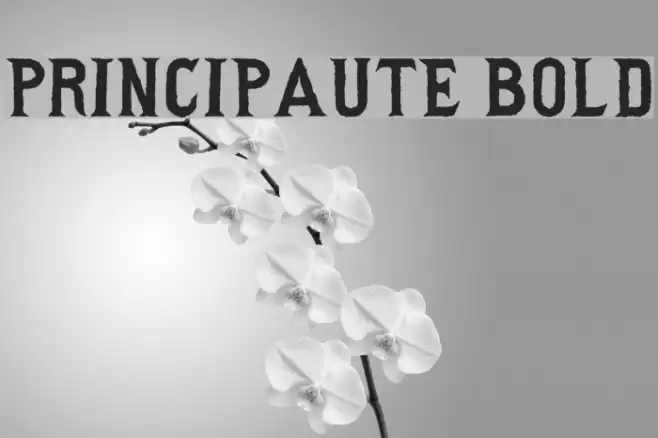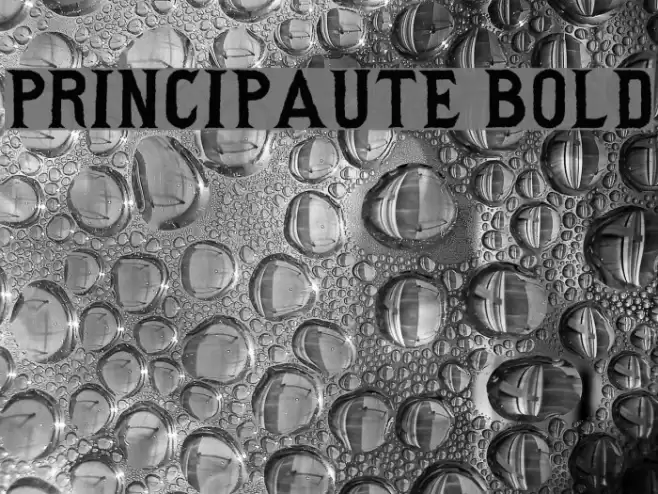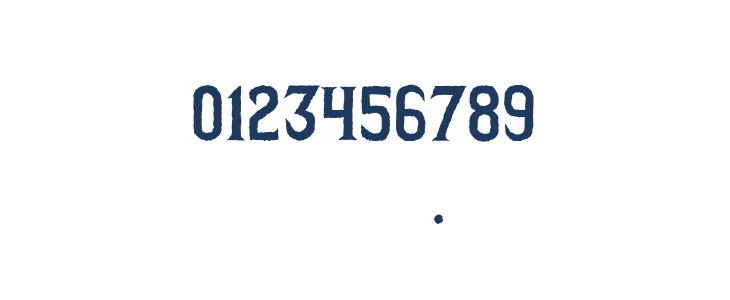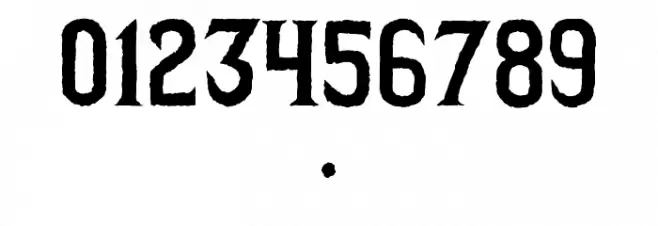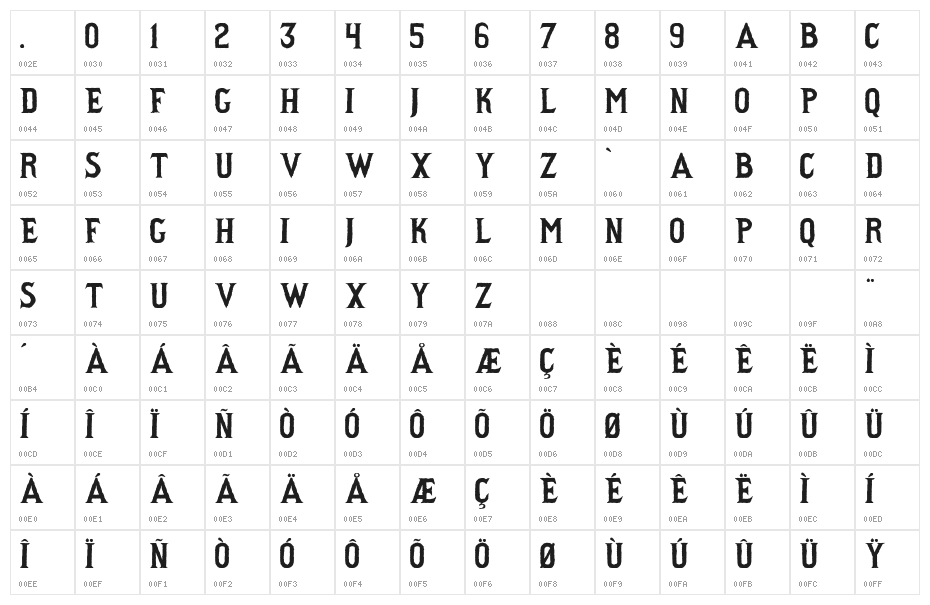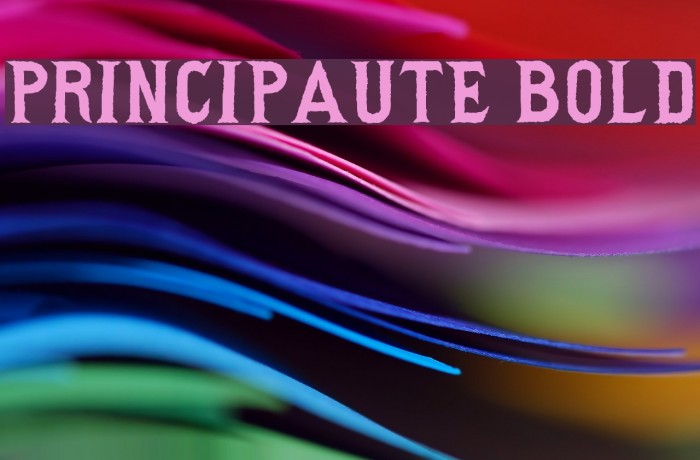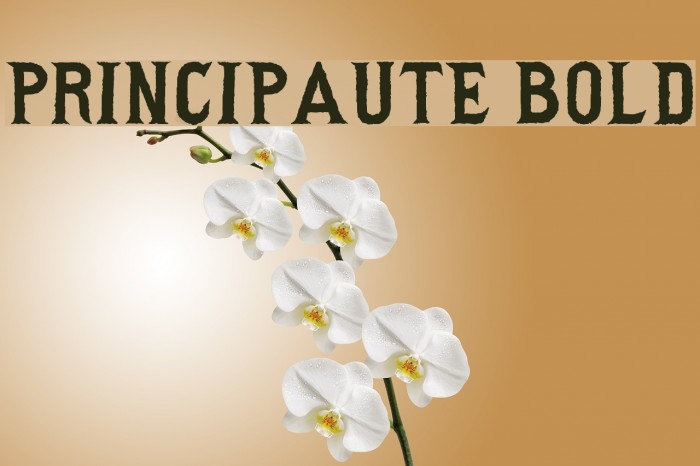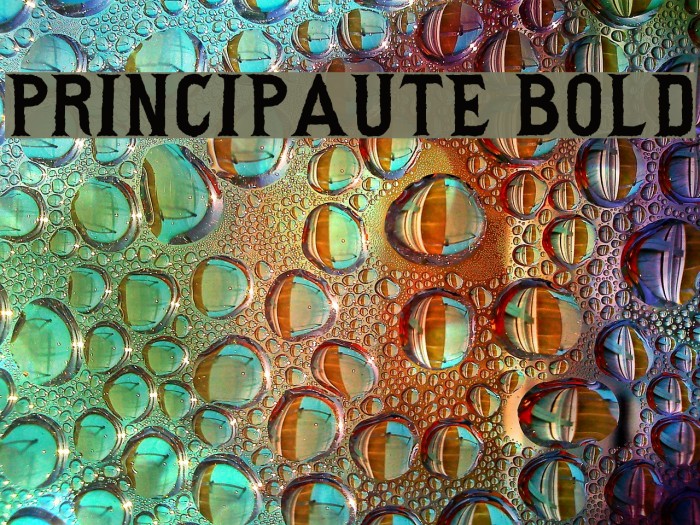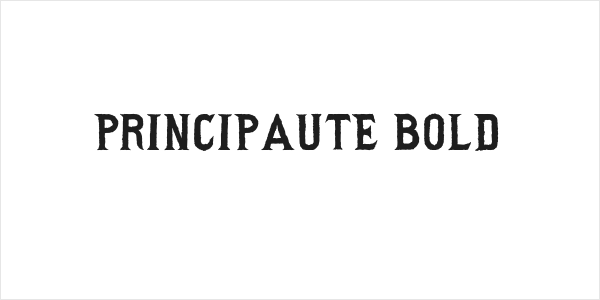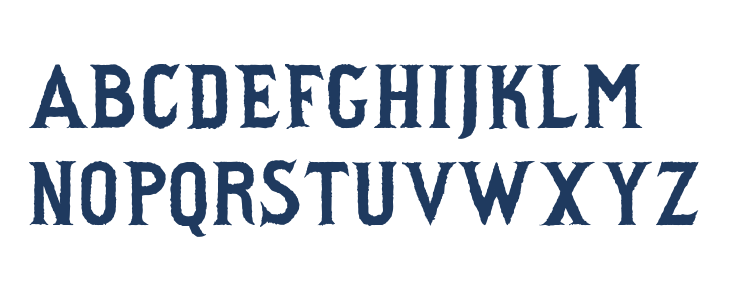
Principaute Bold Font
Principaute Bold Description
This font exhibits a bold and striking appearance with a distinct vintage flair. The characters are designed with sharp, angular edges and a slightly distressed texture, giving it a rugged and dynamic look. The uppercase letters are uniform in height, while the numbers maintain a consistent style that complements the alphabet. The overall design is reminiscent of old-world craftsmanship, making it suitable for projects that require a touch of historical or artisanal charm. The font's boldness ensures it stands out, making it ideal for attention-grabbing headlines or titles.
A bold, vintage-style font with sharp, angular edges and a distressed texture from Uncategorized fonts.
- Proposed Projects: Ideal for vintage-themed posters, branding for artisanal products, book covers, and event invitations.
- Overall Style: Vintage